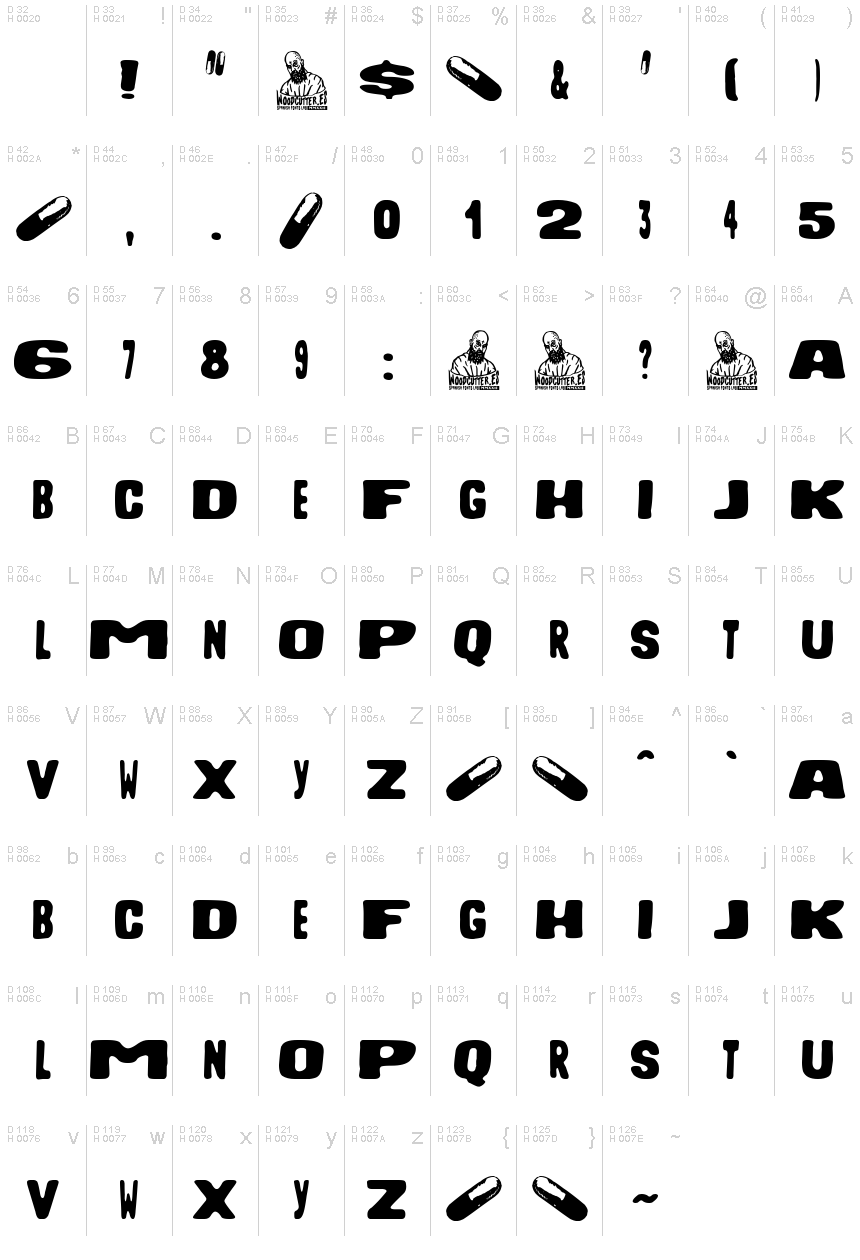
Medicaments Church
Medicaments Church, crafted by the talented Woodcutter, is a display font that commands attention with its bold weight and uniquely distorted style. Each character appears as if it has been masterfully twisted and stretched, injecting a sense of dynamic energy into any text it adorns. The font's exaggerated, irregular shapes make it perfect for projects that demand an eye-catching and unconventional aesthetic.
Ideal for headlines, posters, album covers, or any creative work where making a statement is key, Medicaments Church stands out with its daring design. Its visually impactful presence ensures that any message delivered through this font will not go unnoticed.
Medicaments Church.